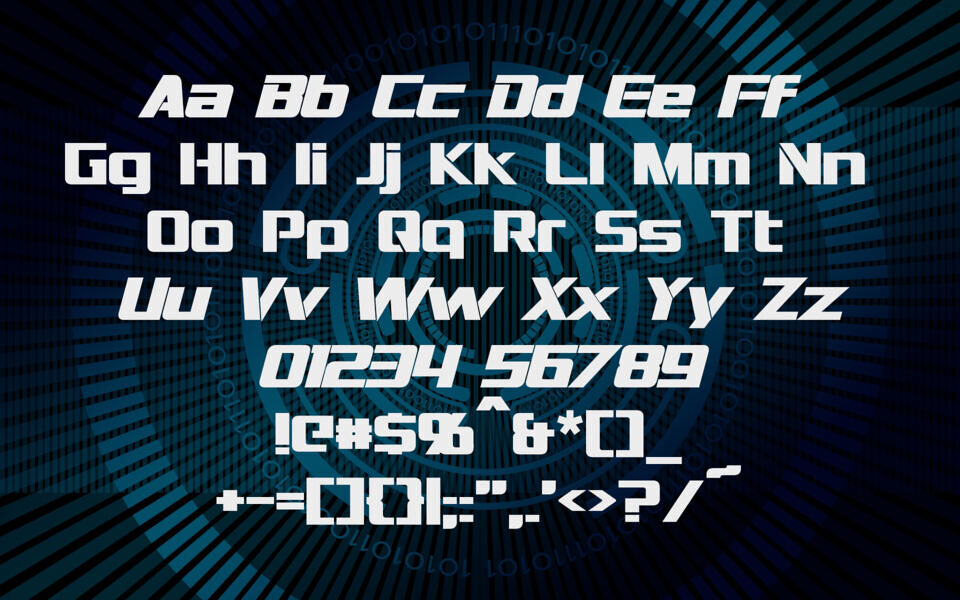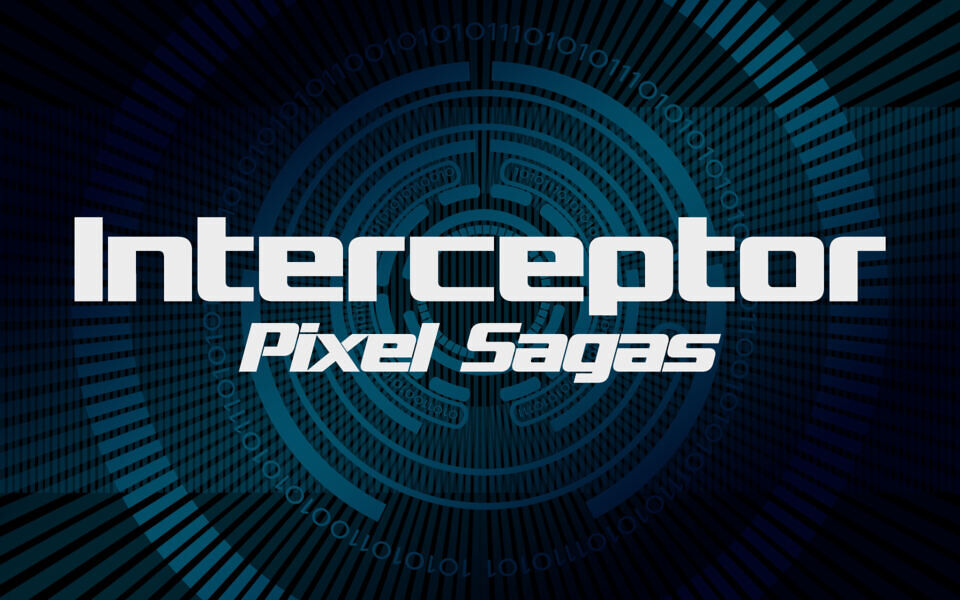
Interceptor Font
Interceptor is a custom commission LCD-based typeface. It features a thick, bold presence with some stencil details and sharp-corners replacing some curves.
Includes full alphabet, extended punctuation, Euro. Includes bold, italic, and bold-italic faces.